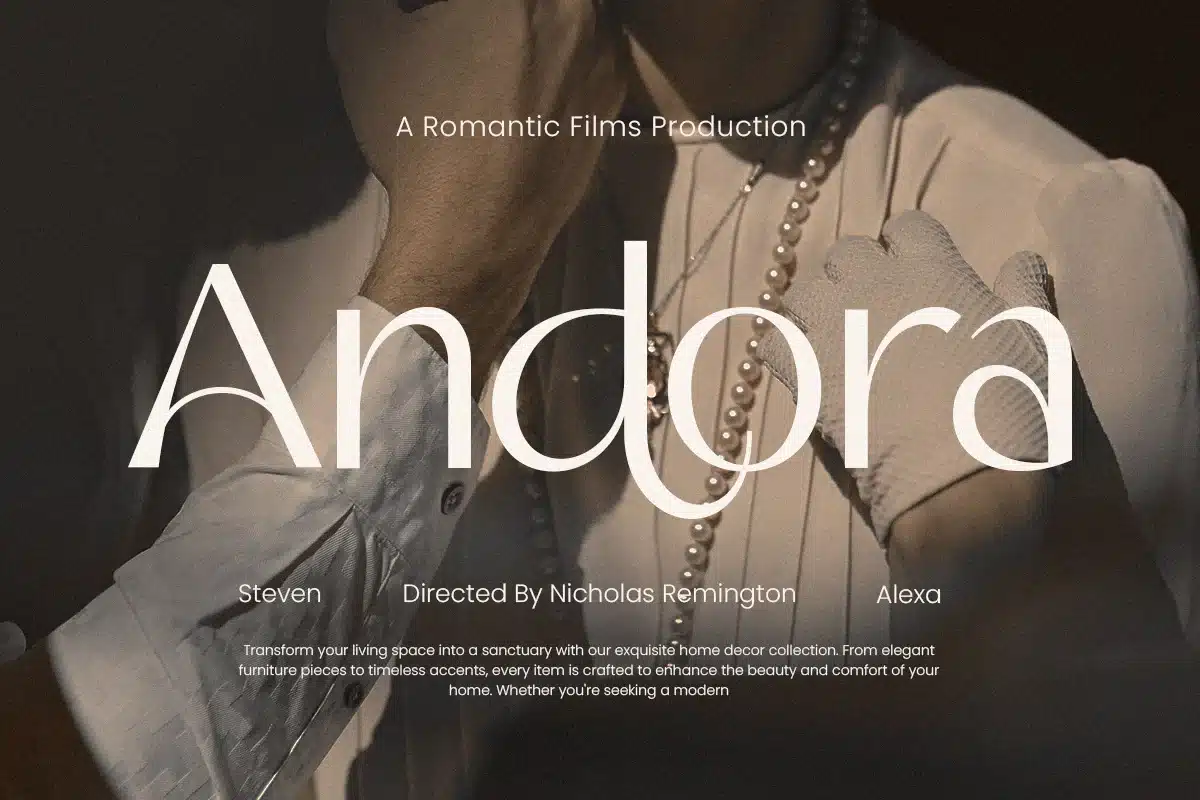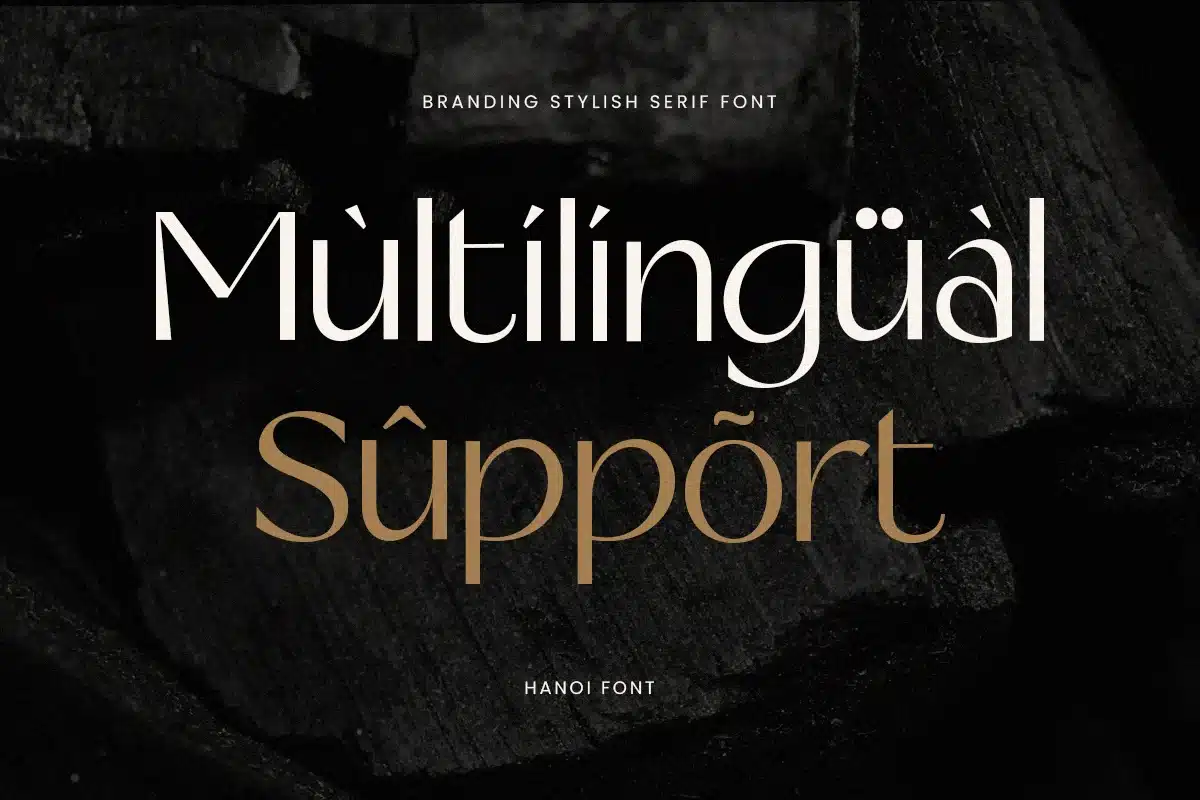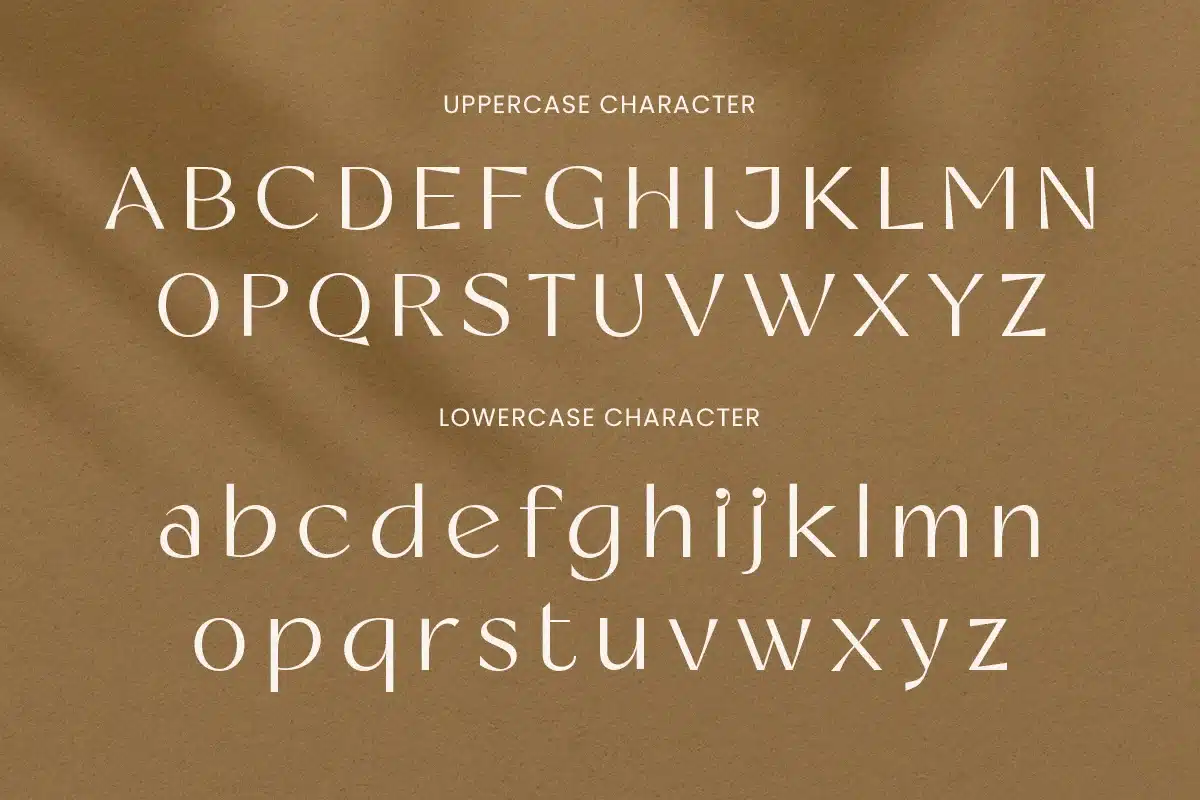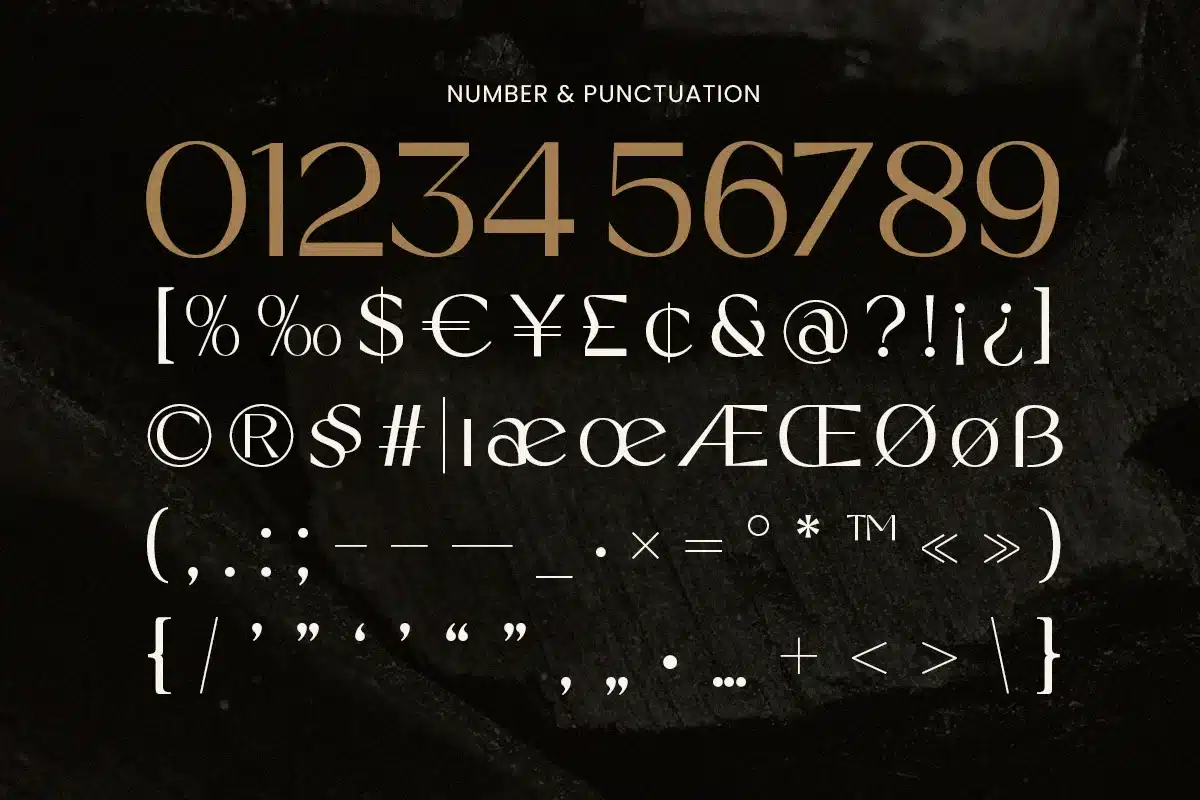
Hanoi – Branding Stylish Sans Serif Font
Hanoi is a branding-focused stylish serif font designed to bring elegance and sophistication to your creative projects. With refined letterforms and balanced proportions, it’s ideal for logos, branding, packaging, editorial designs, and premium digital or print projects. Combining modern aesthetics with classic serif elements, Hanoi delivers a polished and professional look while remaining versatile and readable. It’s perfect for designers seeking a chic, elegant, and timeless style.
Hanoi – Branding Stylish Serif Font Features
- Elegant and stylish serif character set
- Perfect for branding and premium projects
- Includes uppercase, lowercase, numerals, and punctuation
- Suitable for digital and print designs
- OpenType features for added versatility
Elevate your branding and design projects with Hanoi – the perfect stylish serif font for elegance and sophistication.